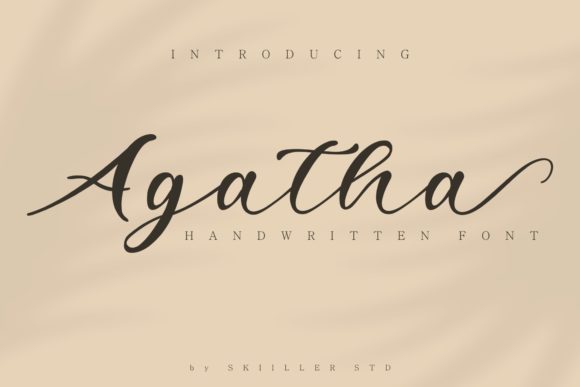
Discover the Elegance of Agatha Font: A Beautifully Minimalist Script with a Bold Vibe
Are you a designer or crafter looking for a unique and stylish font to elevate your creative projects? Look no further than Agatha Font, a stunningly beautiful and minimalist script that exudes a bold vibe. In this article, we’ll dive into the world of Agatha Font, exploring its distinctive style, features, and uses, as well as provide tips and inspiration for incorporating it into your designs.
What is Agatha Font?
Agatha Font is a modern script font that embodies the perfect balance of elegance and minimalism. Its clean lines, subtle curves, and bold strokes make it an ideal choice for designers seeking a sophisticated and eye-catching typography solution. Agatha Font is perfect for a wide range of creative projects, from branding and advertising to packaging and digital media.
Unique Features of Agatha Font
So, what sets Agatha Font apart from other script fonts? Here are some of its unique features:
- Minimalist design: Agatha Font boasts a remarkably minimalist design, making it perfect for modern and contemporary designs.
- Bold vibe: Despite its minimalist approach, Agatha Font packs a bold punch, adding a touch of confidence and sophistication to any design.
- Unique letterforms: Agatha Font features distinctive letterforms that are both elegant and quirky, adding a touch of personality to your designs.
- High legibility: Agatha Font is designed to be highly legible, making it suitable for use in a variety of contexts, from headings and titles to body text.
Using Agatha Font in Your Designs
Agatha Font is an incredibly versatile typography solution that can be used in a wide range of creative projects. Here are some ideas to get you started:
- Branding and logos: Agatha Font is perfect for creating elegant and sophisticated brand identities, from logos and business cards to letterheads and packaging.
- Advertising and marketing: Use Agatha Font to create eye-catching headlines, titles, and taglines that grab attention and leave a lasting impression.
- Digital media: Agatha Font is ideal for use in digital media, including social media graphics, blog posts, and website designs.
- Crafting and DIY projects: Agatha Font can add a touch of elegance and sophistication to your crafting and DIY projects, from handmade cards and invitations to scrapbooking and journaling.
Tips for Working with Agatha Font
To get the most out of Agatha Font, here are some tips to keep in mind:
- Experiment with font sizes: Agatha Font looks great in a variety of font sizes, from large headings to smaller body text.
- Play with color: Agatha Font can be used with a range of colors, from bold and bright to subtle and muted.
- Mix and match: Try pairing Agatha Font with other typography solutions to create a unique and visually appealing design.
In conclusion, Agatha Font is a beautifully minimalist script with a bold vibe that’s perfect for designers and crafters looking to elevate their creative projects. With its unique features, versatility, and high legibility, Agatha Font is an excellent choice for a wide range of applications. So why not give Agatha Font a try and see how it can inspire your next design project?